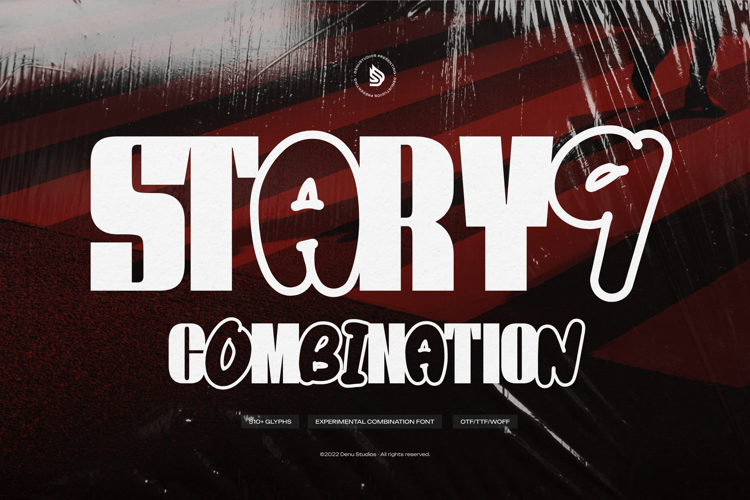
Stary 9 Font
Stary9 | Experimental Combination Font product packaging, mugs, quotes, posters, shopping bags, t-shirts, book covers, name card, invitation cards, greeting cards, label, photography, watermark, special events, and all your other lovely projects that need a Experimental Combination taste.